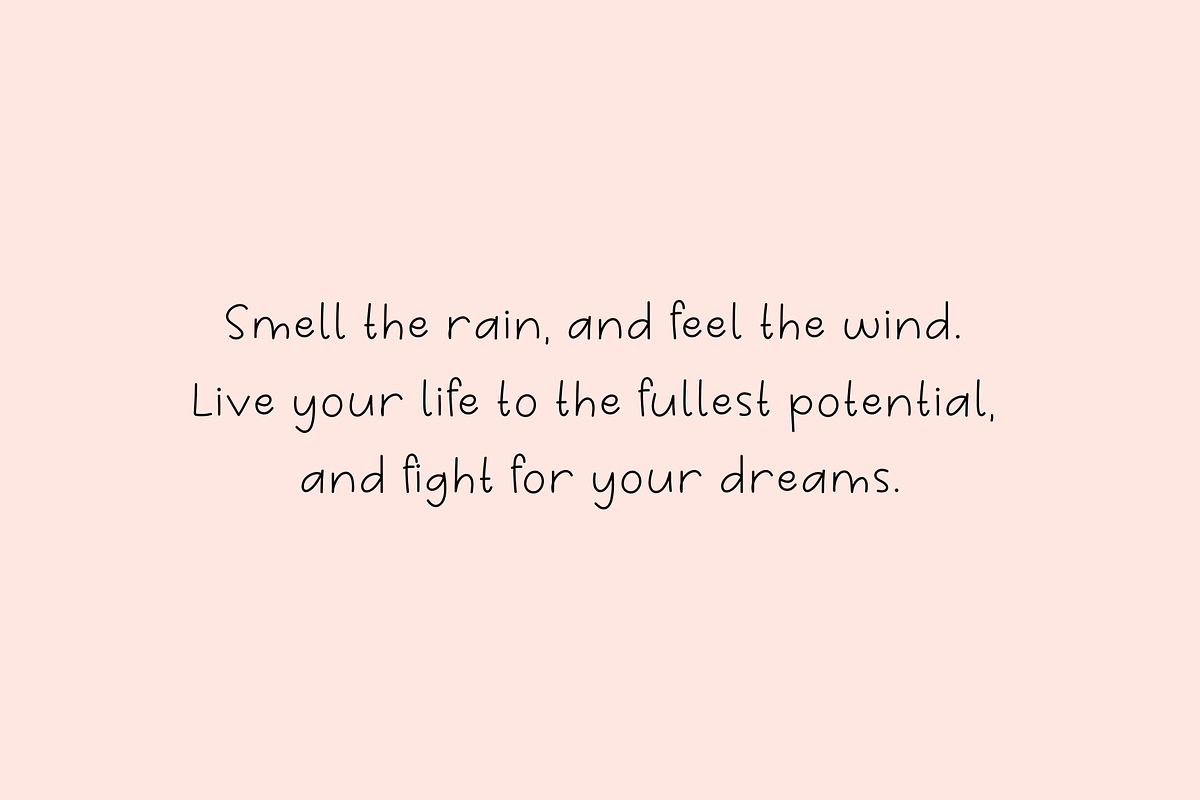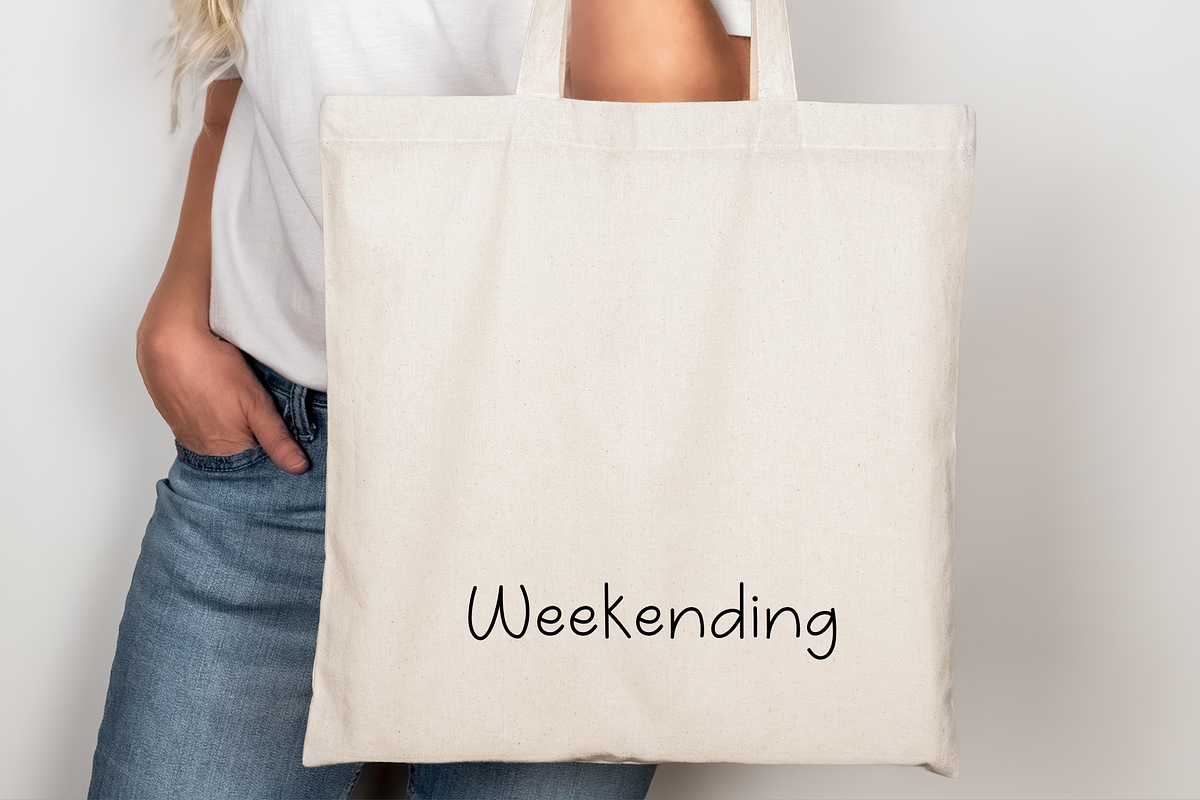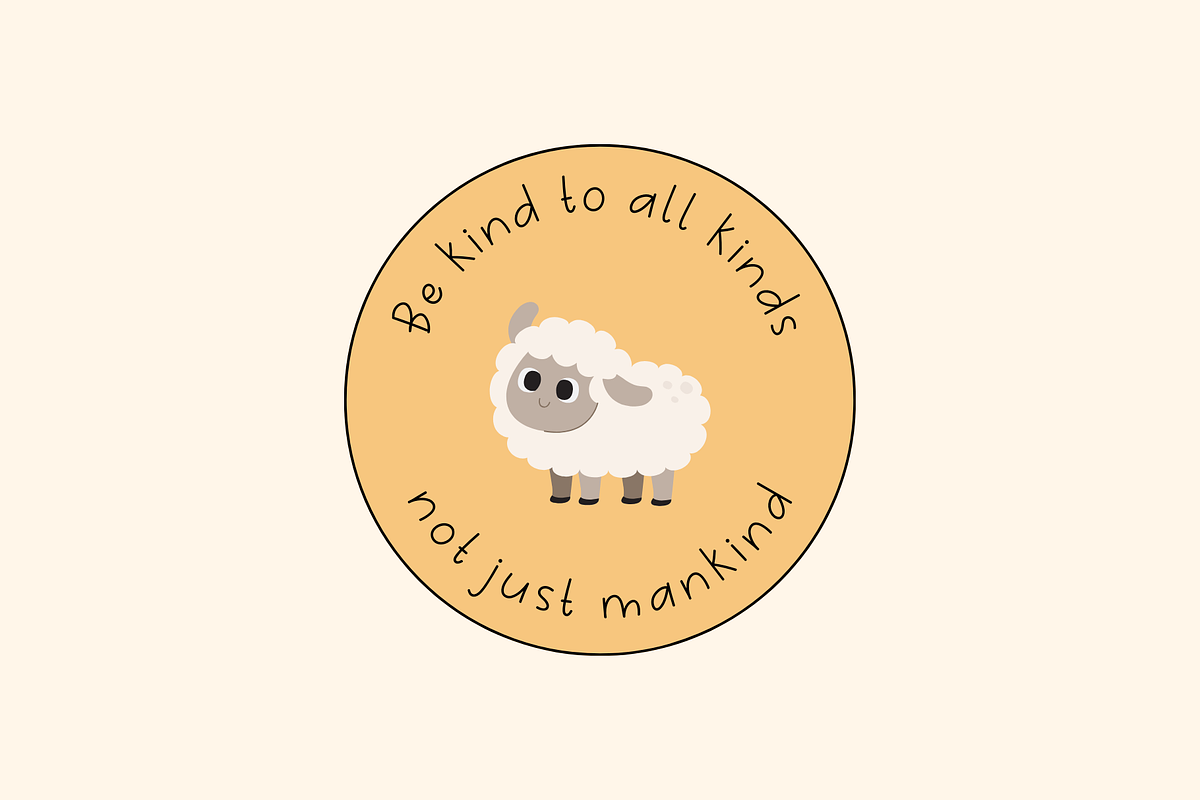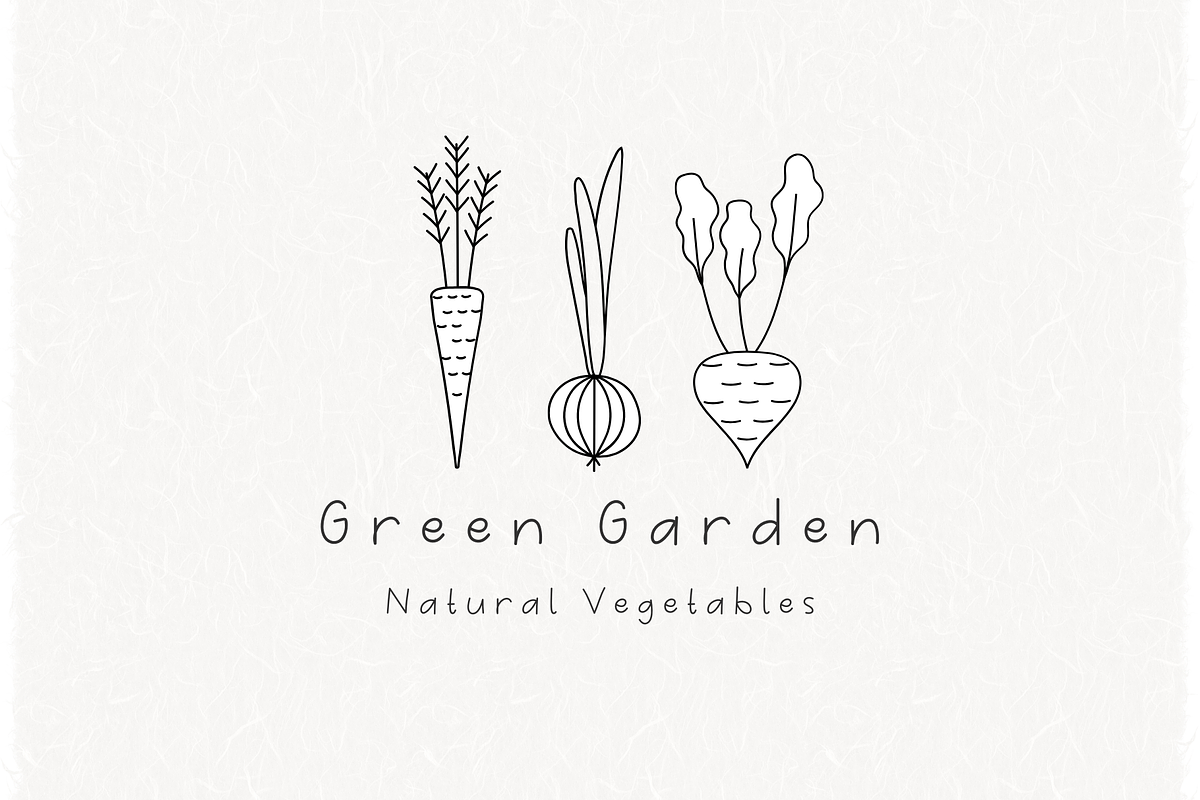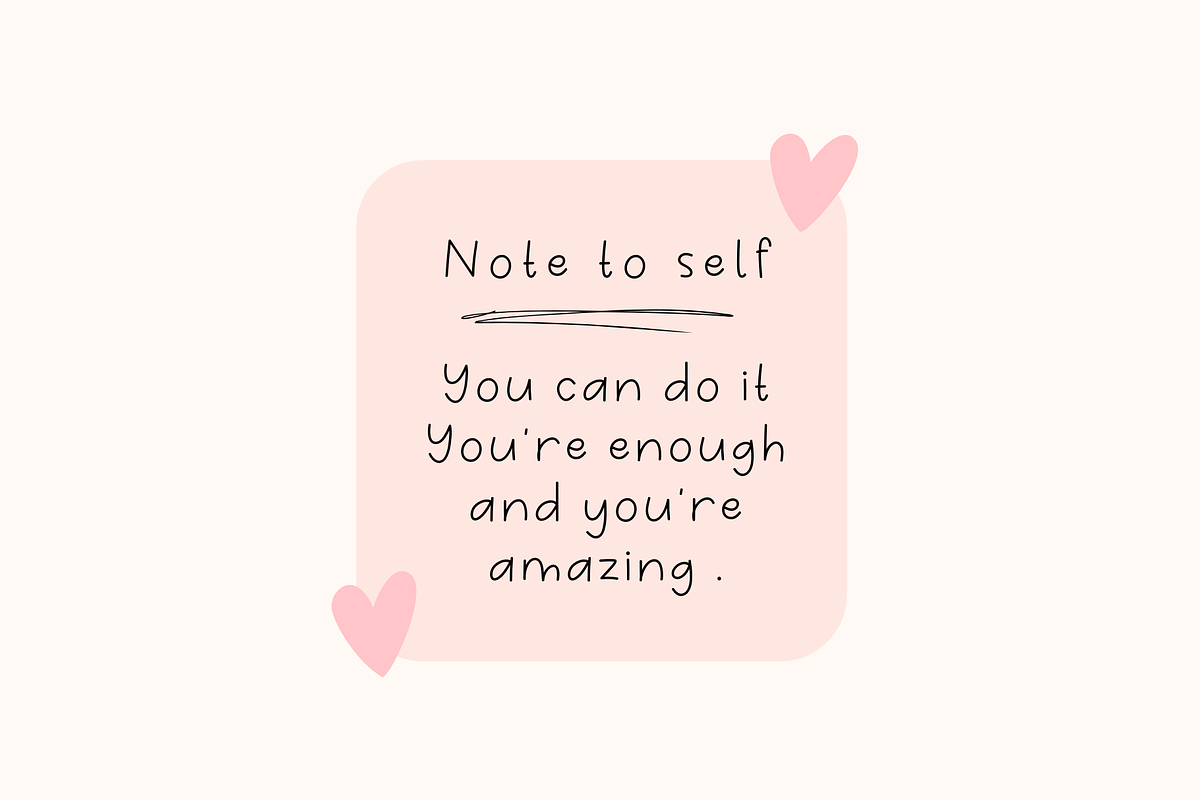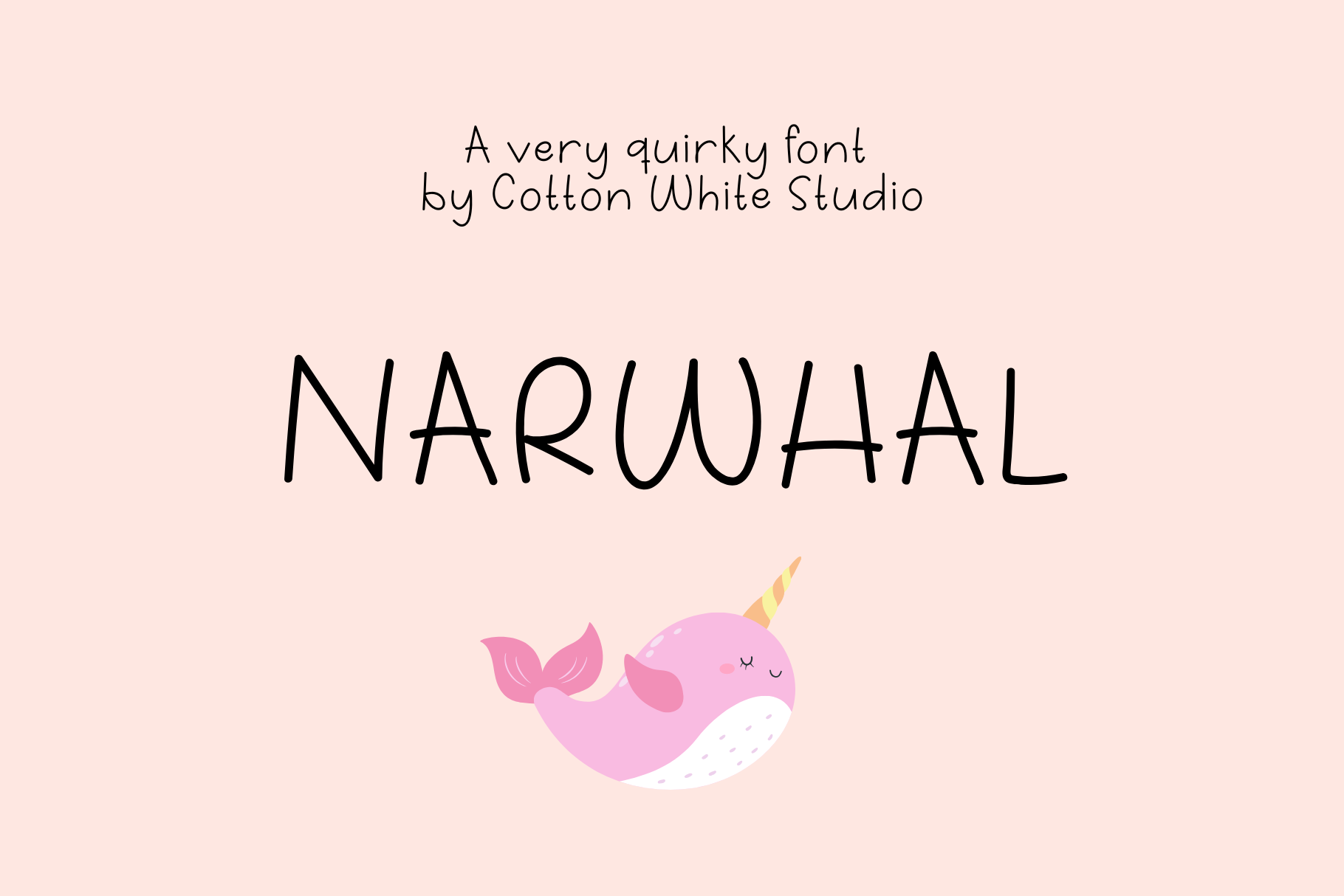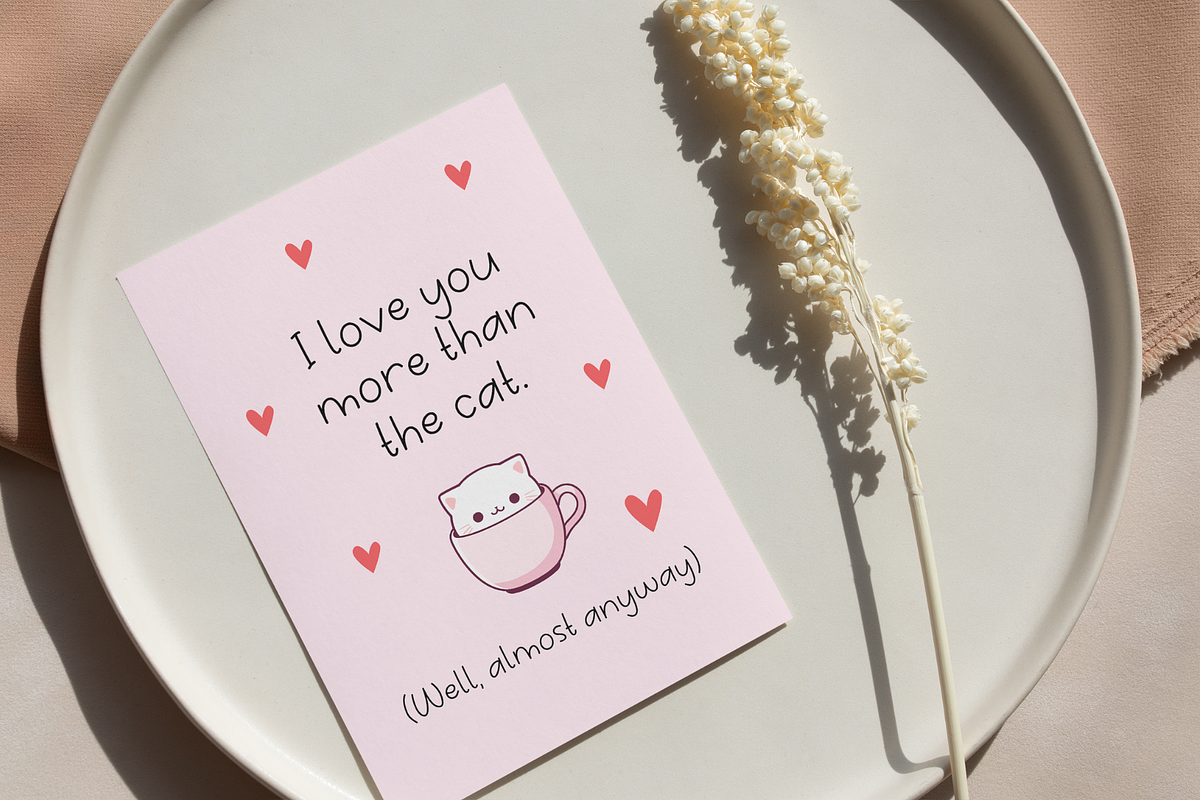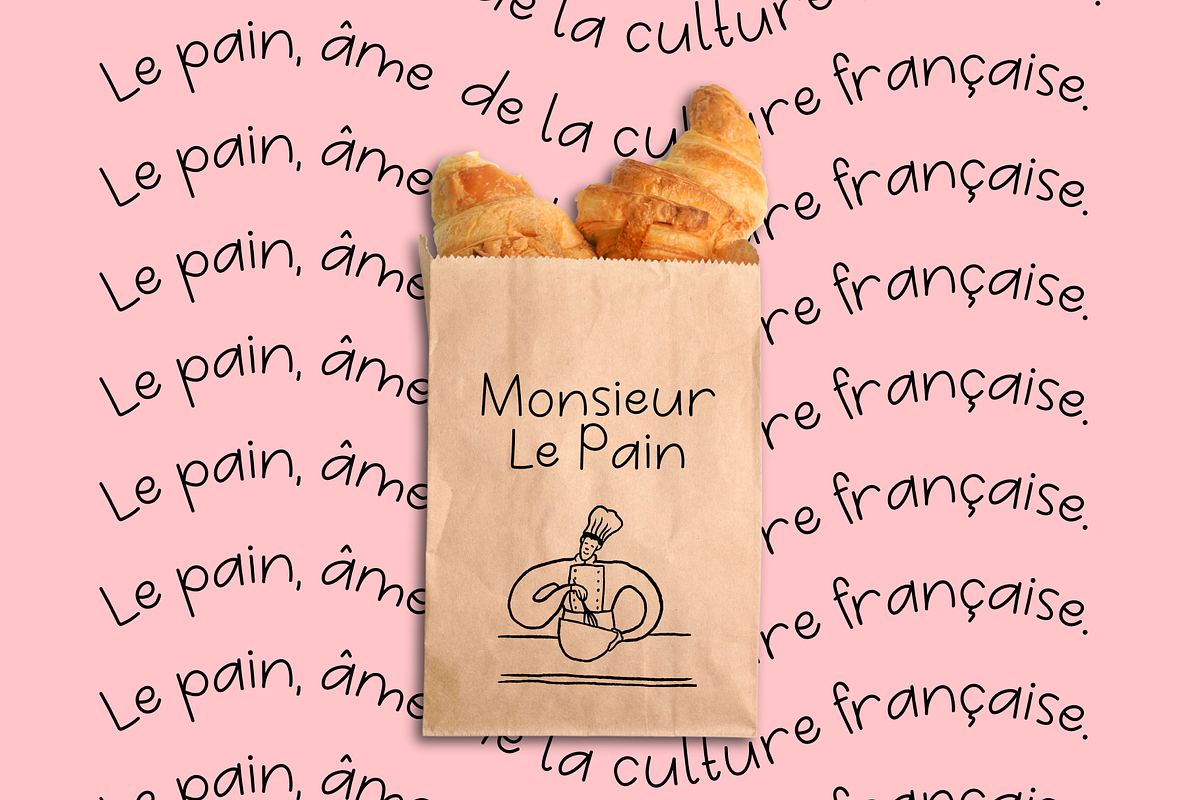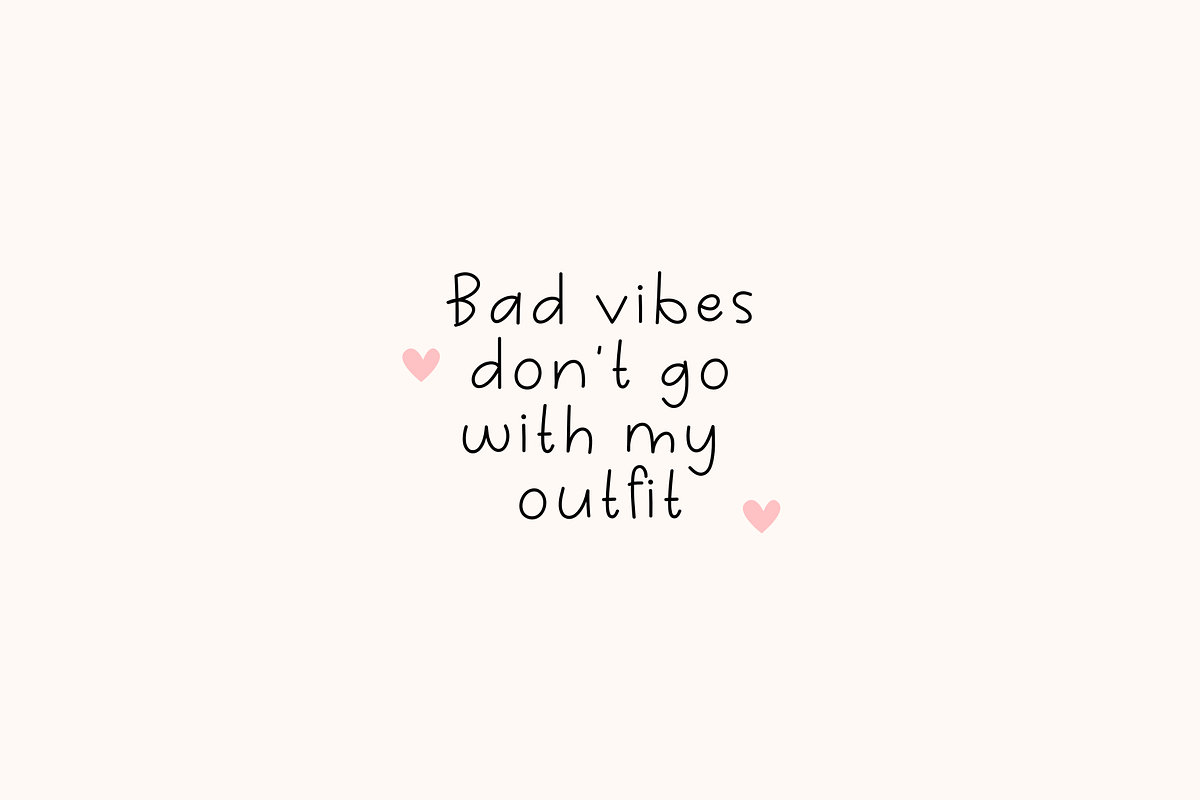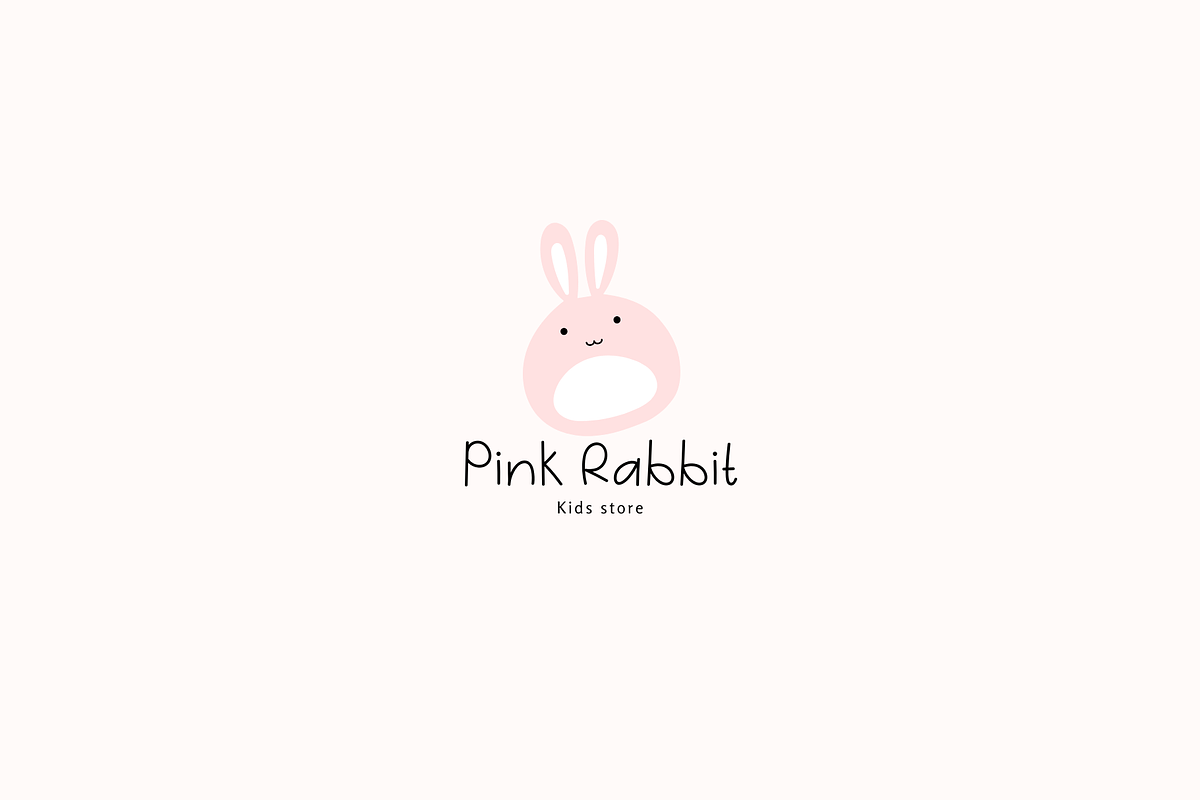
Narwhal Cute Handwritten Font
A cute little font, perfect to jazz up your digital planner, journal, invitations, note-taking, or anything that requires a handwriting look.
Includes uppercase and lowercase letters, numbers, essential punctuation marks, and multilingual support. ❤️